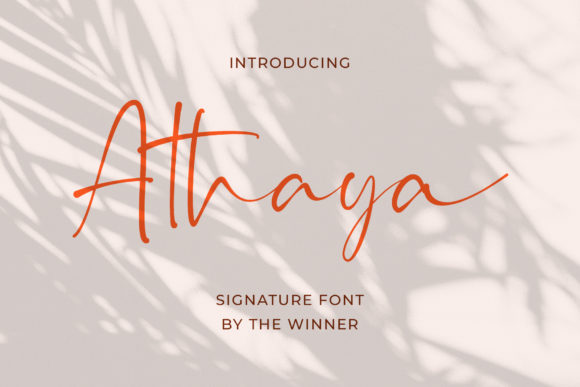
The Elegant Charm of Athaya Font: A Designer’s Delight
I’ll never forget the time I was working on a wedding invitation project, and my client asked for a font that was ” elegant, yet playful, and not too over-the-top.” I scoured the internet, tried out countless fonts, but nothing seemed to fit the bill. That was until I stumbled upon Athaya Font. ✨ This lovely script font has been a game-changer for me, and I’m excited to share its charm with you.
An Honest Review of Athaya Font
- ✨ Elegant and delicate script style that’s perfect for formal designs
- 💫 Beautifully crafted to add a touch of sophistication to any design
- 🌈 Versatile and works well for a variety of design projects, from wedding invitations to branding materials
While Athaya Font is an excellent choice for many design projects, there are a few things to keep in mind: 🤔
- ⚠️ Limited availability of stylistic alternates, which may limit its use for some designers
- ⚠️ May not be the best choice for body text, as it’s designed primarily for headings and titles
The Backstory of Athaya Font
Athaya Font was crafted with love by a talented designer who wanted to create a font that exuded elegance and class. The designer’s inspiration came from traditional calligraphy and the beauty of handwritten scripts. The result is a font that’s both timeless and modern, perfect for designers who want to add a touch of sophistication to their work.
| Font Name | Athaya Font |
| Author | The1stWinner |
Q: What type of designs is Athaya Font best suited for?
A: Athaya Font is perfect for designs that require a touch of elegance and sophistication, such as wedding invitations, branding materials, and headings.
Q: Is Athaya Font available in different weights or styles?
A: Currently, Athaya Font is available in a single weight. However, the designer may release additional weights or styles in the future.